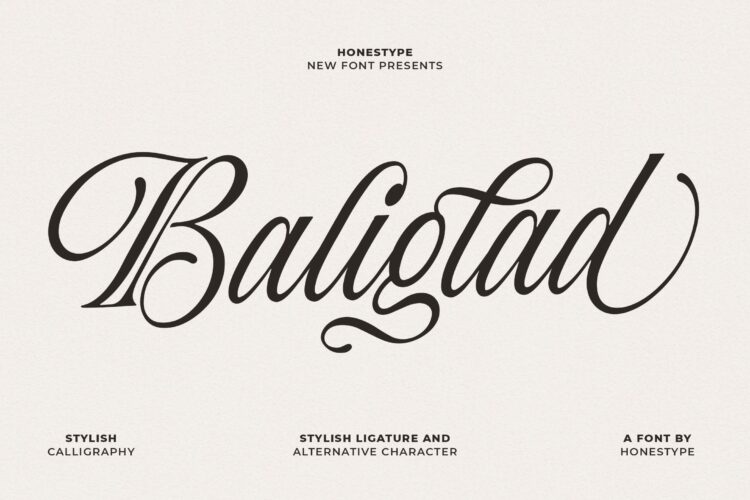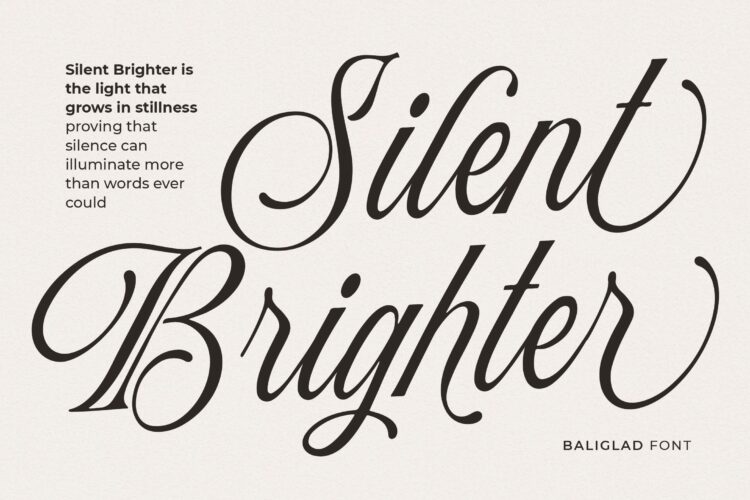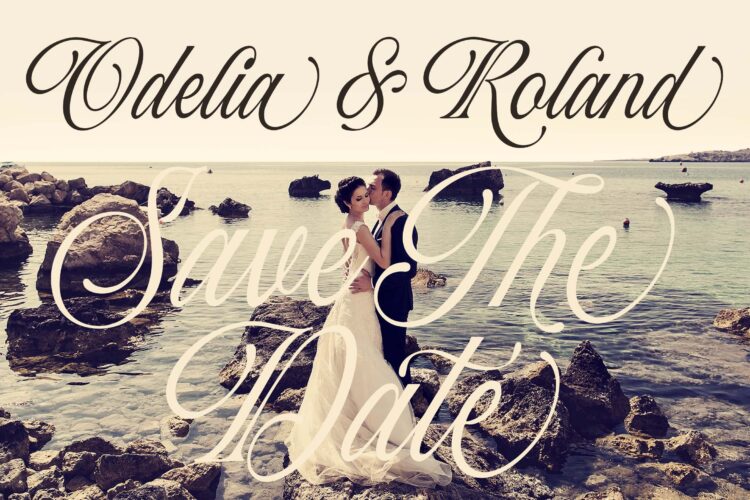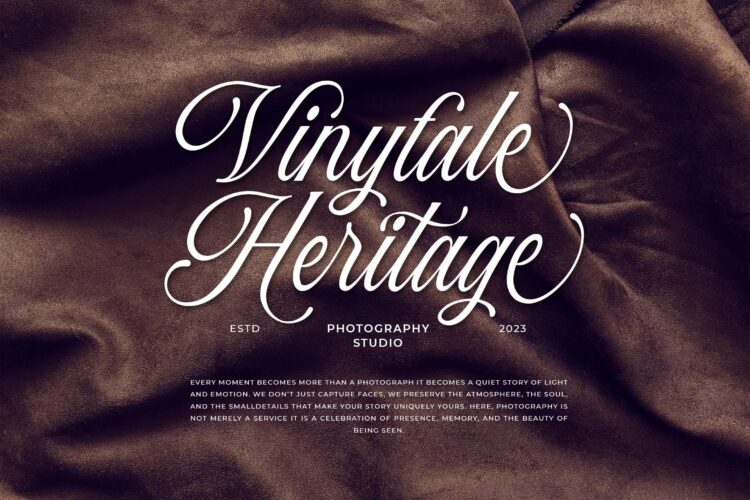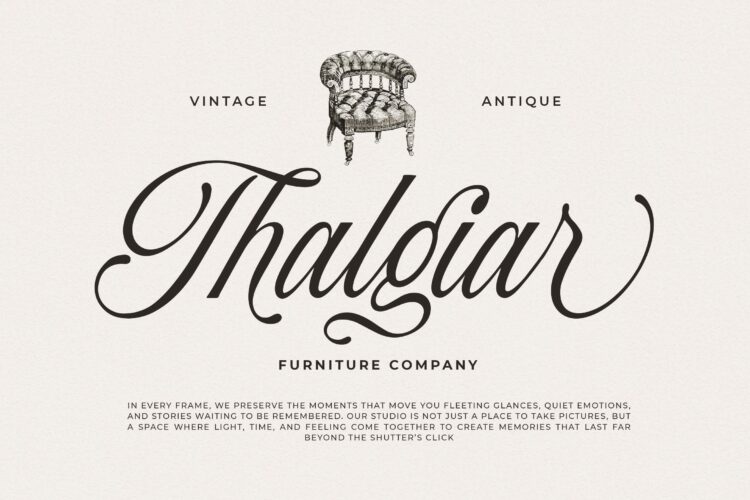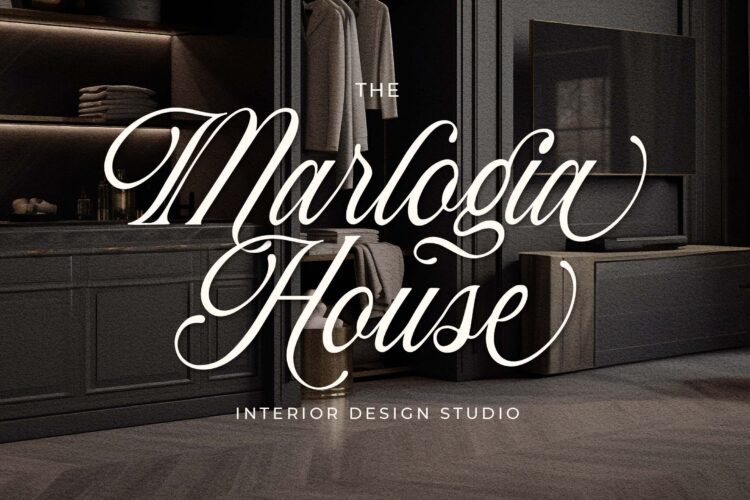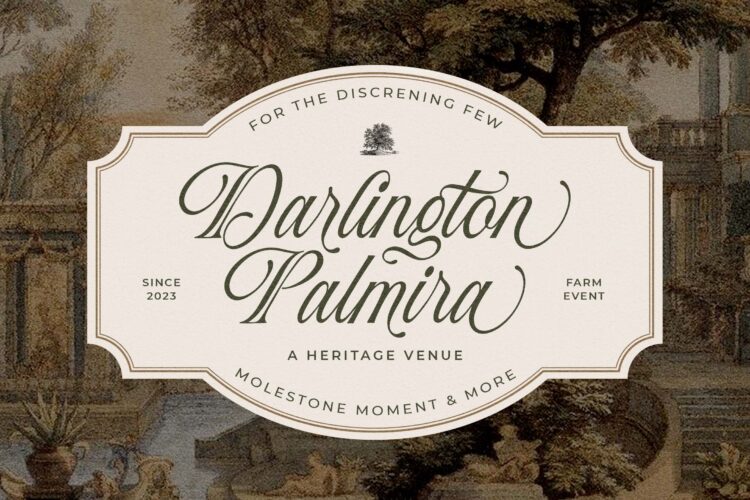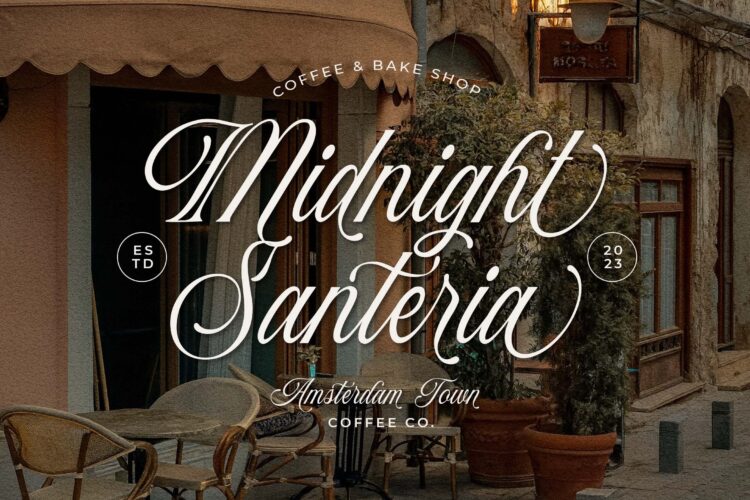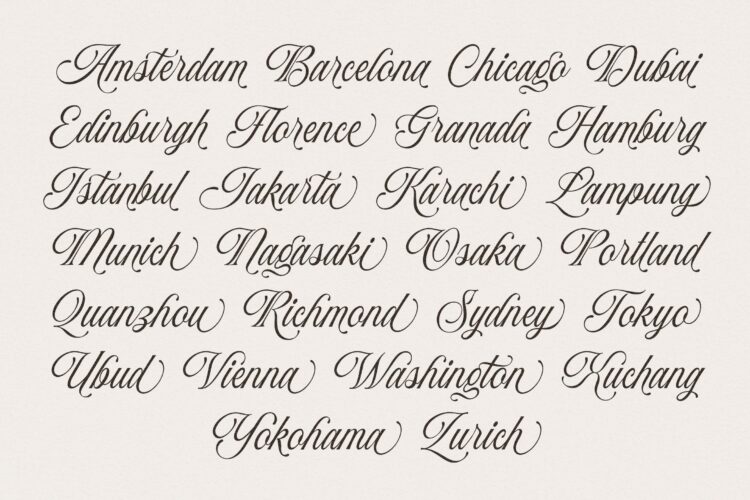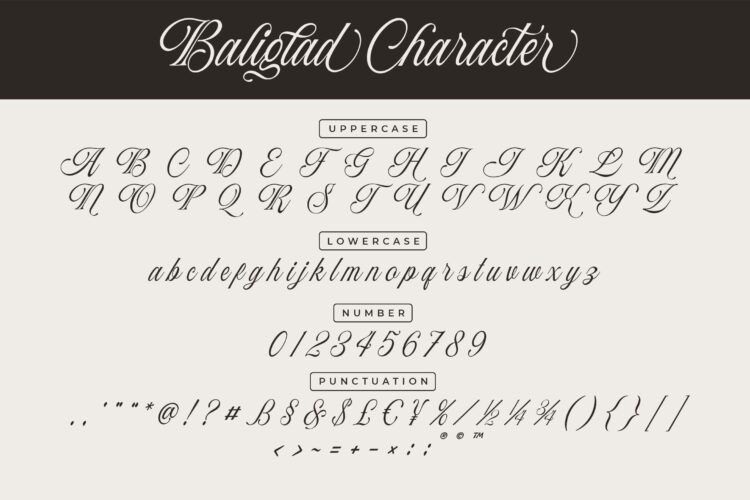
Baliglad is a stylish calligraphy font designed to bring elegance, charm, and a handcrafted feel into your creative projects. With smooth flowing strokes and graceful letterforms, Baliglad delivers a perfect balance between modern sophistication and classic calligraphic beauty.
This font is ideal for branding, logos, wedding invitations, social media graphics, packaging, quotes, and premium editorial designs. Its natural rhythm and stylish curves make every word feel expressive and visually captivating.
Baliglad works beautifully as both a statement font and a complementary accent, helping your designs stand out with a refined and artistic touch.
Whether you’re crafting a luxury brand or a personal creative project, Baliglad adds personality, elegance, and timeless style to your typography.